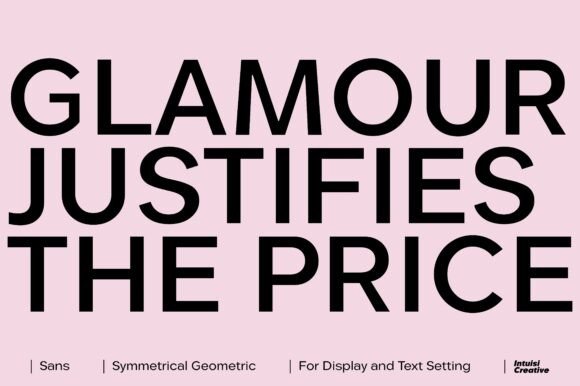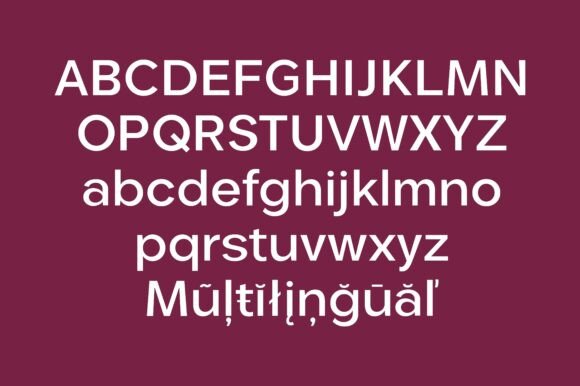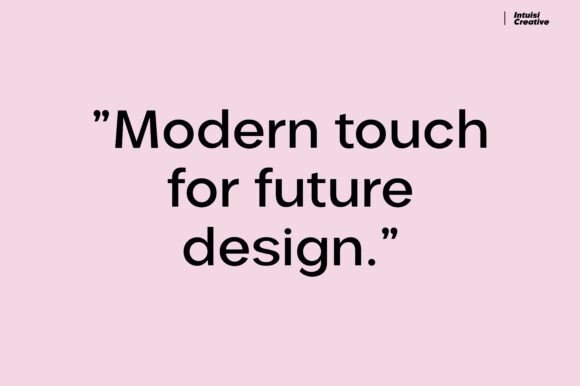
Introducing Glamure Medium Font: Elevate Your Brand to Luxurious Heights
In the realm of typography, few fonts manage to convey the essence of luxury and sophistication as effectively as the Glamure Medium Font. This meticulously crafted typeface is designed to embody the pinnacle of elegance and opulence, making it the perfect choice for high-end branding, boutique packaging, and sophisticated invitations. With its striking contrasts, graceful strokes, and refined details, Glamure Medium Font is poised to elevate your brand’s identity to new heights of prestige and sophistication.
The Epitome of Luxury Typography
Glamure Medium Font is more than just a typeface – it’s an experience. Each character is carefully designed to contribute to a sophisticated narrative that exudes refinement and luxury. The font’s elegant strokes and precise lines create a seamless blend of beauty and sophistication, making it ideal for cosmetic labels, boutique packaging, and high-end product branding. Whether you’re looking to create a luxurious brand image or simply want to add a touch of elegance to your designs, Glamure Medium Font is the perfect choice.
Unparalleled Versatility
One of the standout features of Glamure Medium Font is its versatility. This typeface can be used across a wide range of design applications, from elegant invitations and sophisticated business cards to high-end product packaging and cosmetic labels. Its refined aesthetic and luxurious feel make it an excellent choice for designers and crafters looking to create high-end branding materials that exude sophistication and elegance.
Transforming Design with Elegance
Imagine being able to transform your design projects with a single typeface. With Glamure Medium Font, you can elevate your brand’s identity and add a tangible element of value and transcendence to your designs. This font is specifically designed to turn cosmetic labels into a seamless blend of beauty and sophistication, making it perfect for luxury beauty brands and high-end product designers.
Sophisticated Invitations and Branding
Glamure Medium Font is also ideal for creating sophisticated invitations that set the tone for upscale events. Each letter is crafted to be the epitome of grace, serving as the perfect prelude to luxury gatherings and high-end events. For designers and crafters, this font offers a unique opportunity to create memorable and impactful branding materials that leave a lasting impression.
Why Choose Glamure Medium Font?
So, why choose Glamure Medium Font over other typefaces? Here are just a few reasons why this font stands out:
- Luxurious aesthetic: Glamure Medium Font is designed to exude luxury and sophistication, making it perfect for high-end branding and design projects.
- Versatility: This typeface can be used across a wide range of design applications, from invitations and business cards to product packaging and cosmetic labels.
- Elegant strokes and refined details: The font’s elegant strokes and precise lines create a seamless blend of beauty and sophistication.
- Transforms design projects: With Glamure Medium Font, you can elevate your brand’s identity and add a tangible element of value and transcendence to your designs.
| Author | IntuisiCreative |
In conclusion, Glamure Medium Font is the perfect choice for designers and crafters looking to elevate their brand’s identity to luxurious heights. With its luxurious aesthetic, versatility, elegant strokes, and refined details, this typeface is poised to transform design projects and add a tangible element of value and transcendence. Whether you’re looking to create high-end branding materials, sophisticated invitations, or luxurious product packaging, Glamure Medium Font is the ultimate choice.
Ready to experience the luxury and sophistication of Glamure Medium Font? With this typeface, you can:
- Create high-end branding materials that exude elegance and refinement.
- Elevate your product packaging to new heights of luxury and sophistication.
- Design sophisticated invitations that set the tone for upscale events.
- Transform your design projects with a single, luxurious typeface.
Discover the epitome of luxury with Glamure Medium Font. Elevate your designs, transform your brand’s identity, and experience the art of typography like never before.